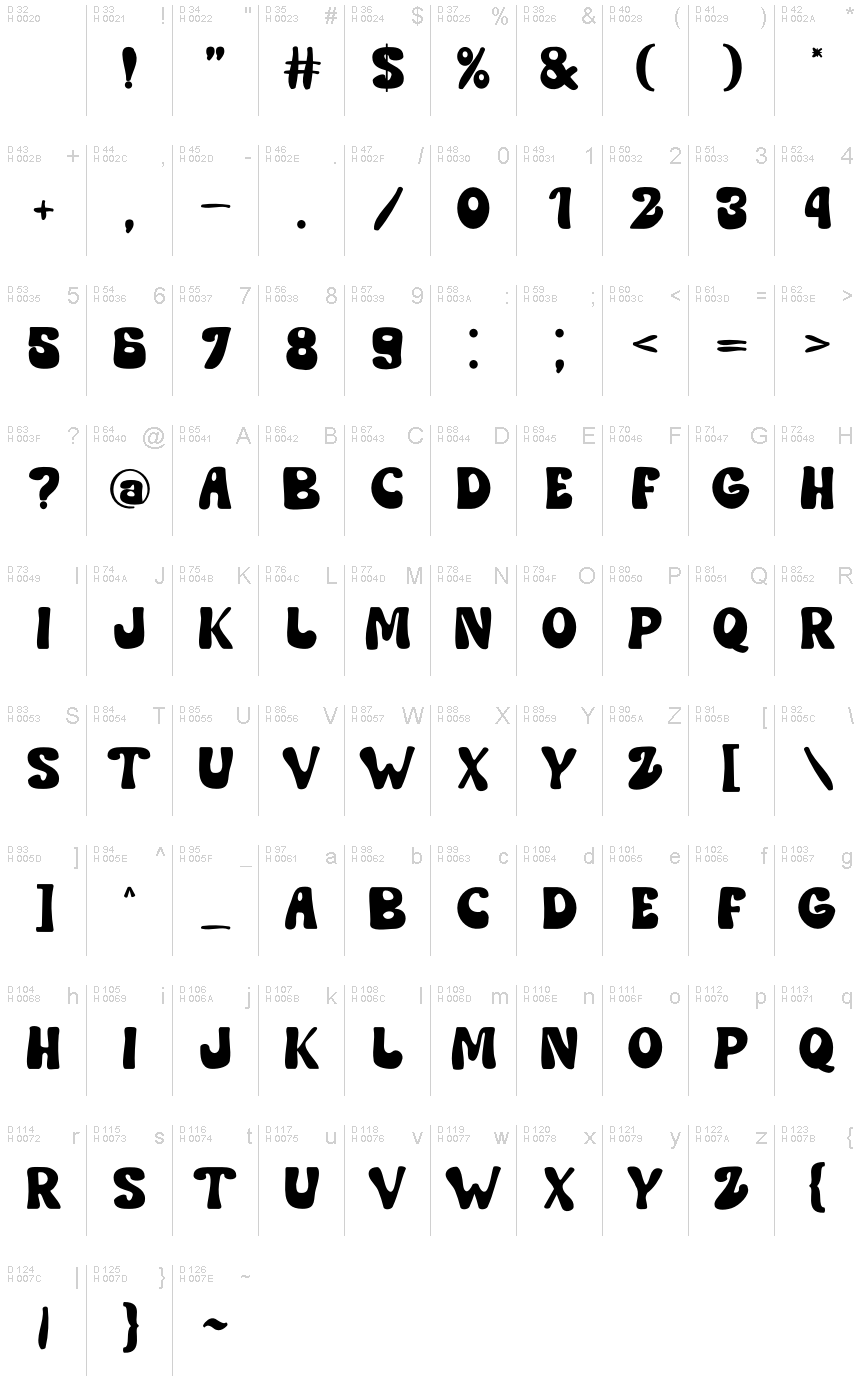
Flowers Sunday
Flowers Sunday, a captivating display font designed by Rvandtype, exudes a groovy, bold charm that instantly captivates the eye. This visually striking typeface boasts distinct floral-inspired letterforms, seamlessly blending organic curves with a playful, contemporary aesthetic. The bold weight and unique character shapes lend an undeniable sense of dynamism, evocative of a lively Sunday celebration. Flowers Sunday's striking appearance effortlessly conveys a sense of whimsy and joyfulness, making it an enticing choice for a wide range of design applications.
Flowers Sunday's versatility shines through its ability to elevate various design projects, from vibrant event branding to eye-catching editorial layouts. Its bold, expressive nature lends itself particularly well to attention-grabbing headlines, impactful logos, and engaging social media graphics. Whether used as a standout display font or as a playful accent, Flowers Sunday has the power to elevate any design, infusing it with a touch of festive flair.